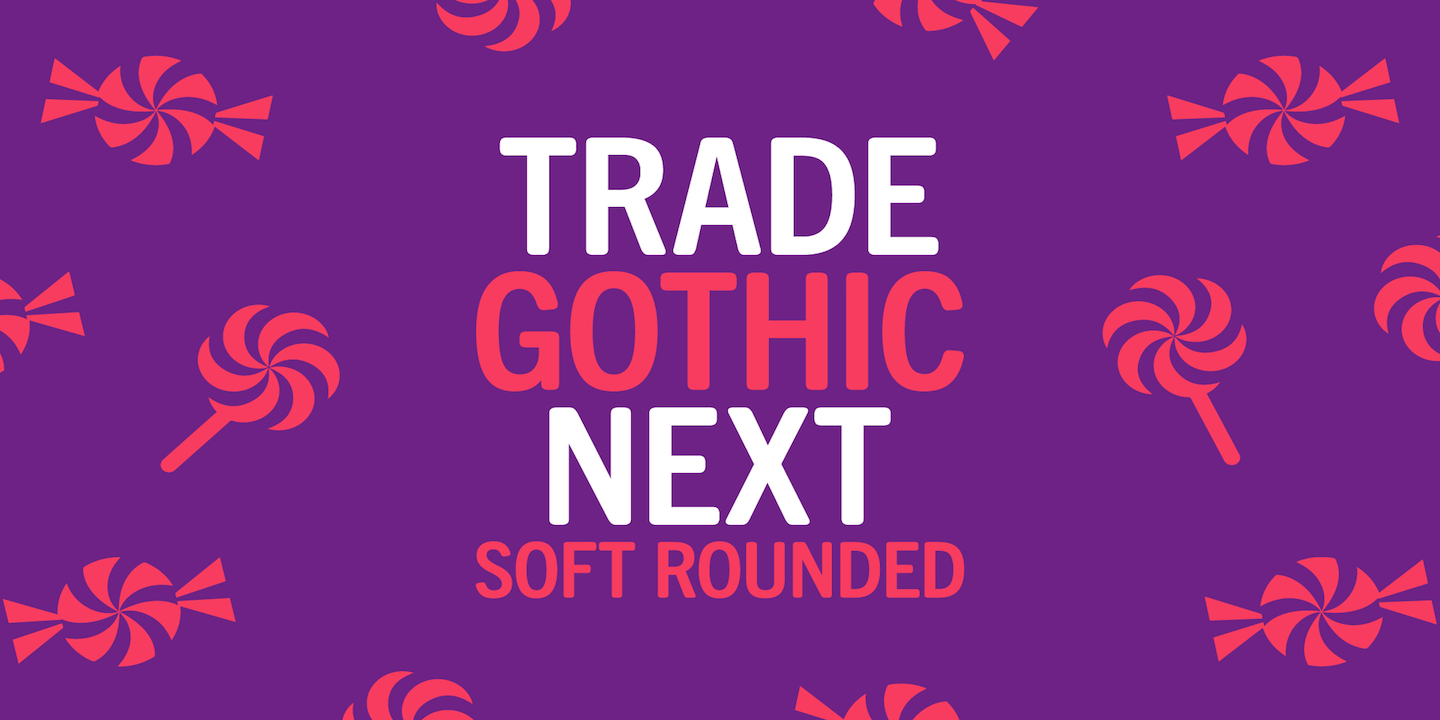
Trade Gothic Next Soft Rounded Font is ideal for friendly brand identity, approachable corporate communications, children's products, healthcare branding, educational materials, user-friendly interfaces, casual marketing campaigns, family-oriented packaging, community organizations, and contemporary designs that require professional credibility with warm accessibility.
What makes Trade Gothic Next Soft Rounded Font truly exciting is its perfect balance between authoritative professionalism and gentle approachability that creates an instantly welcoming yet credible visual presence. This exceptional typeface combines the proven reliability of Trade Gothic heritage with softened corners and humanized letterforms that reduce visual tension while maintaining structural integrity. The font's friendly sophistication and versatile character make it perfect for brands seeking to establish trust and connection while preserving professional standards.
The Trade Gothic Next Soft Rounded Font family includes comprehensive weights and styles: Light, Regular, Medium, Bold, and Black variations, each available in Roman and Italic versions. Each family member maintains the distinctive soft geometric character while offering complete flexibility for diverse branding and communication applications. The extensive character set supports multiple languages and modern typographic features, making it suitable for international friendly branding projects.
When you choose Trade Gothic Next Soft Rounded Font Free Download, you're selecting a typography solution that humanizes professional communication without compromising authority. This versatile typeface excels in applications where approachability is key, delivering exceptional readability while creating positive emotional connections with audiences. Whether you're designing healthcare brands, educational materials, family products, or community communications, this font provides the gentle professionalism and accessible character that resonates with audiences who value both competence and warmth in modern communication.